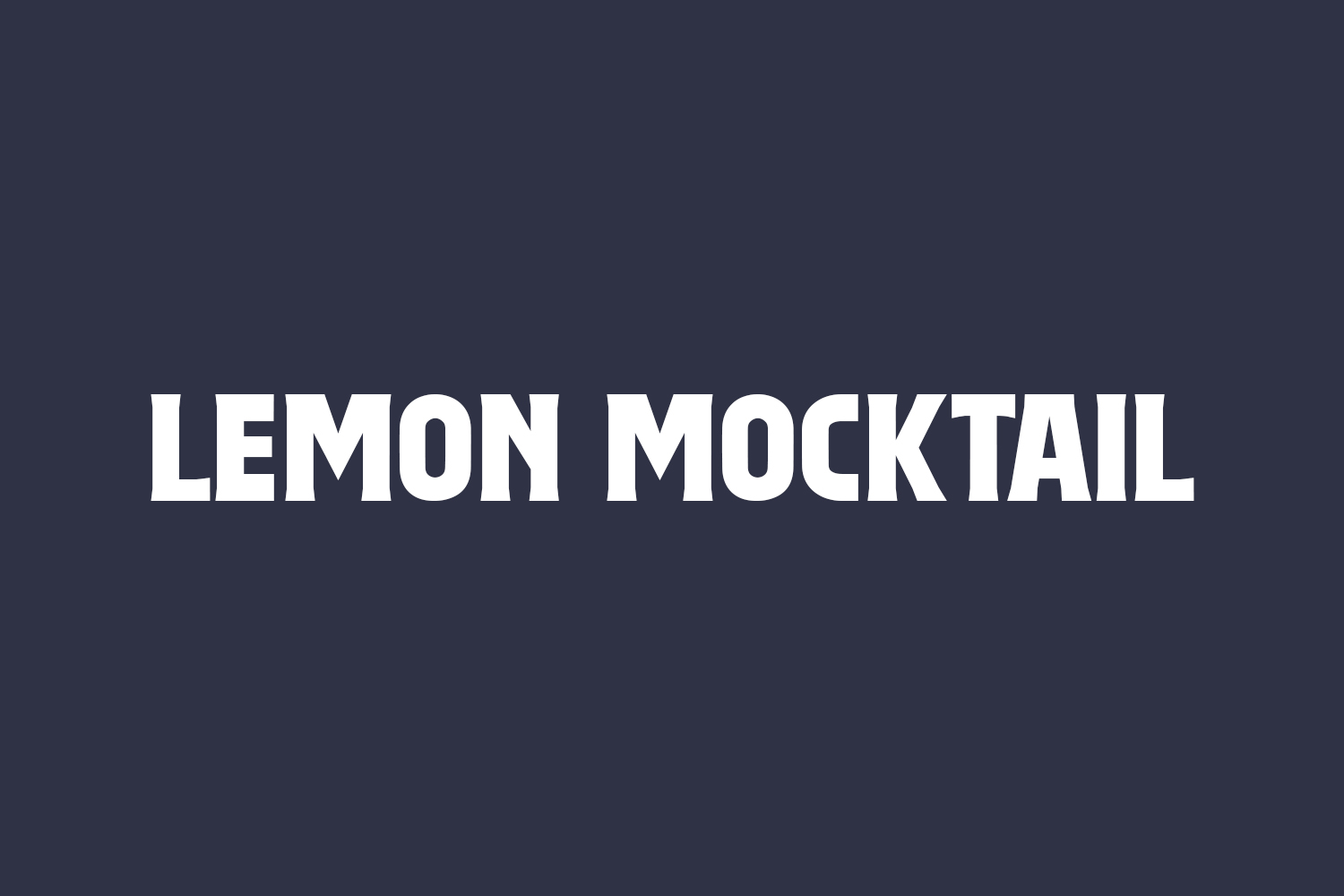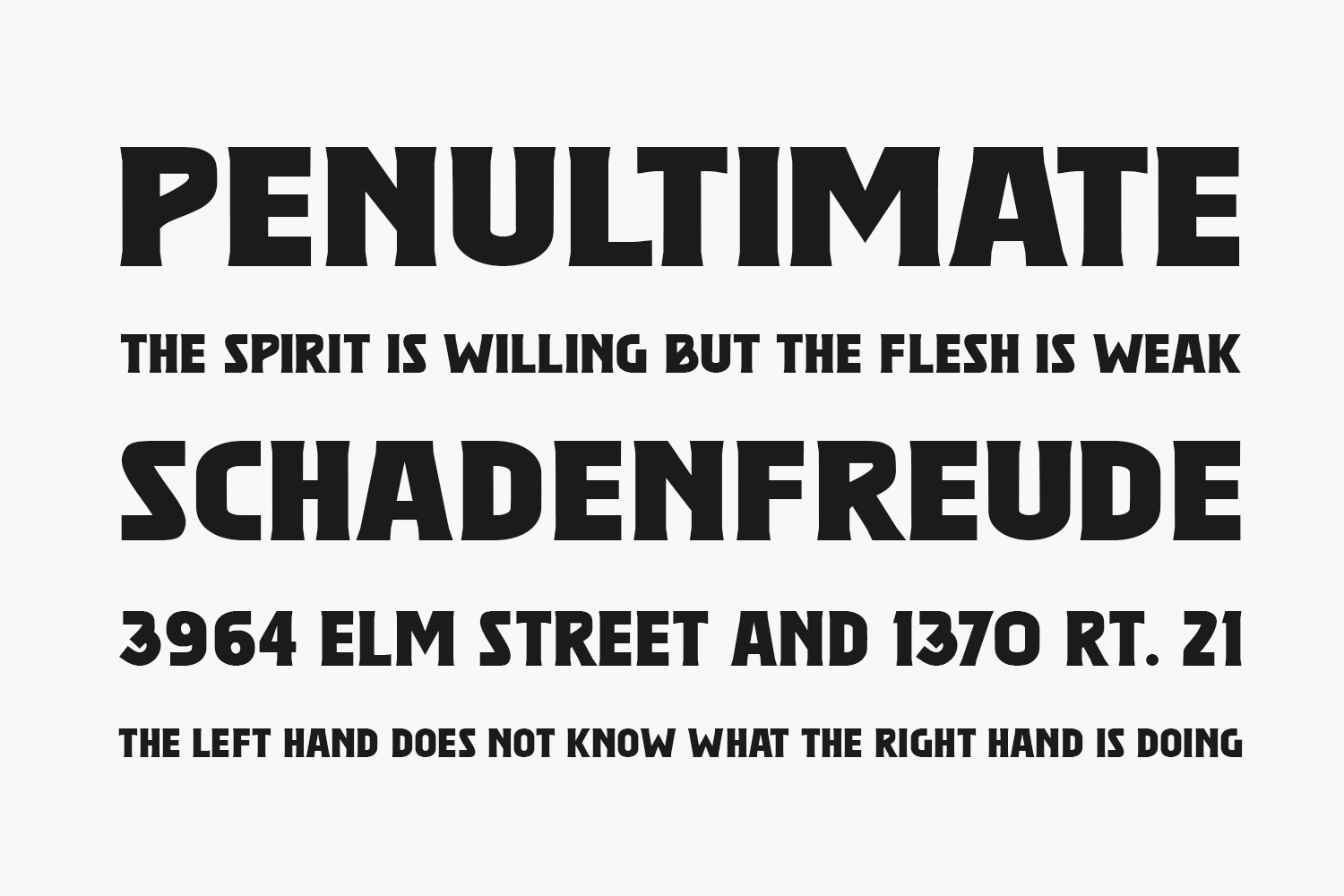
Introducing Lemon Mocktail Free Font, a bold and vintage-inspired font featuring sharp edges and a timeless, decorative aesthetic. Craft attention-grabbing titles or logos with a retro vibe using this versatile typeface. Download the font for free if you need it for personal use or purchase the full version for commercial use.